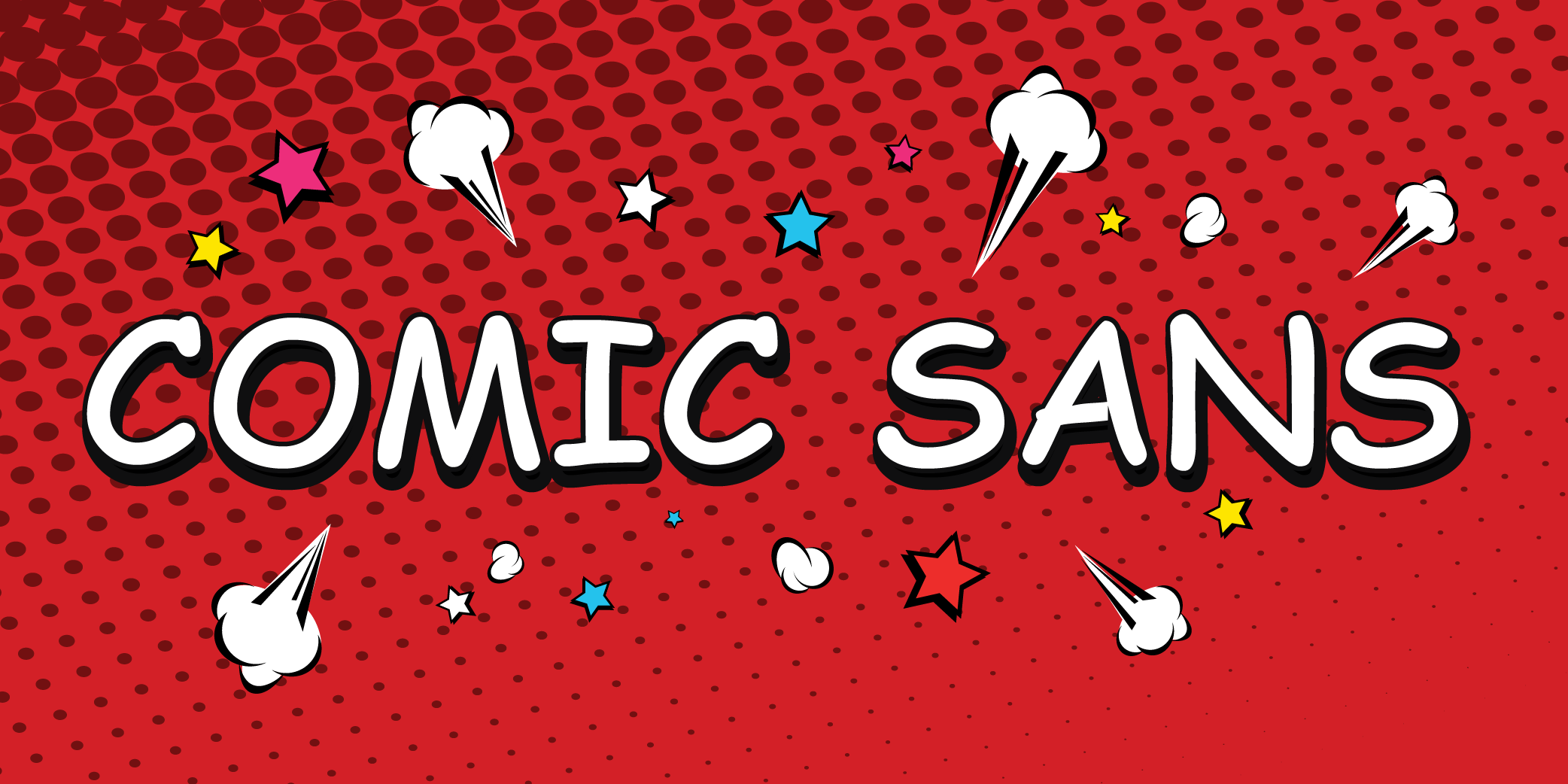
Comic Sans Font is ideal for children's educational materials, comic book speech bubbles, playful birthday invitations, casual school newsletters, fun comic strip designs, friendly daycare signage, informal poster designs, and lighthearted community event flyers.
This font is exciting because it captures the pure joy and casual friendliness of comic book culture with relaxed, approachable letterforms that instantly make any text feel more accessible and fun. The Comic Sans Font embodies the spirit of playful communication and informal expression, transforming ordinary text into cheerful, welcoming messages that break down barriers and create instant connections with audiences.
The Comic Sans Font family includes playful variations such as Regular, Bold, Italic, Condensed, Outlined, Shadow, Extended, and Casual versions, providing informal designers with comprehensive tools to create friendly typography that appeals to both children and adults who appreciate humor and casual communication styles.
Spread casual joy with Comic Sans Font Free Download that brings approachable friendliness to every informal design project. This beloved typeface combines comic book charm with practical functionality, making it perfect for educational content creators, children's brands, and organizations prioritizing accessibility and warmth over formal presentation. The font's friendly character design ensures your message feels welcoming and non-intimidating while maintaining excellent readability across all casual applications. Whether you're creating children's learning materials, designing community event promotions, or developing content that needs to feel approachable and fun, Comic Sans Font delivers the casual typography that connects with audiences seeking friendly, informal communication. Its versatile design works effectively across digital and print media while preserving the lighthearted spirit that makes casual communications feel genuinely accessible and capable of bringing smiles to people who appreciate the simple pleasure of uncomplicated, friendly design.